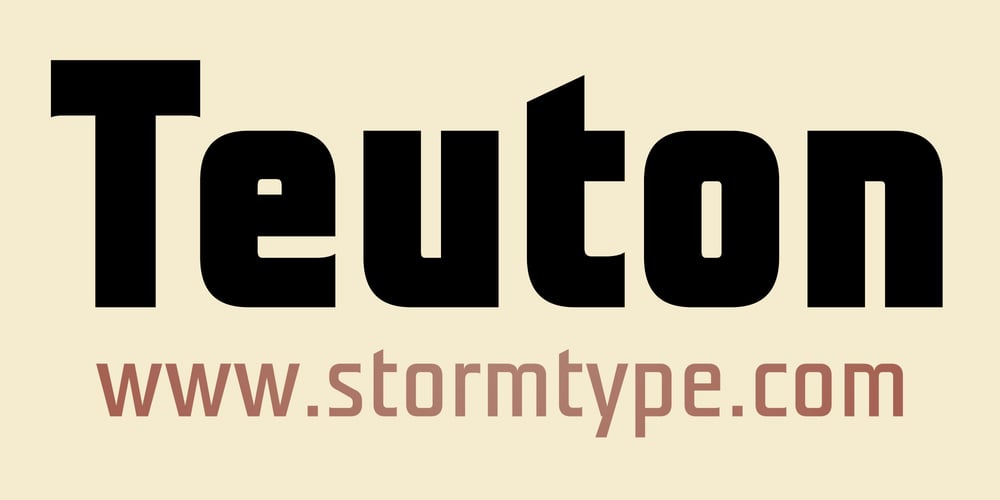
Teuton
Teuton font
Teuton Font Family was designed by František Štorm and published by Storm Type Foundry. Teuton contains 23 styles and family package options. The present font project is inspired by a tombstone inscription on one German grave in northern Bohemia. Suitable combination: Plagwitz, Modell. Teuton is ideal typeface for graves and posters, for advertising as well as magazines.